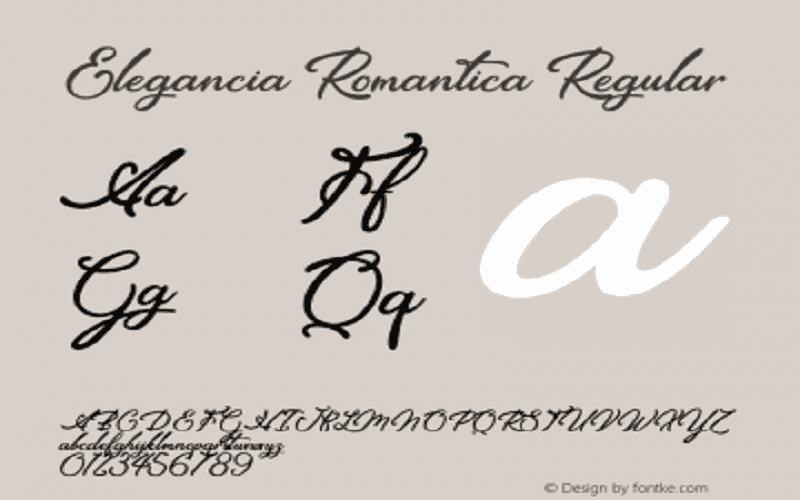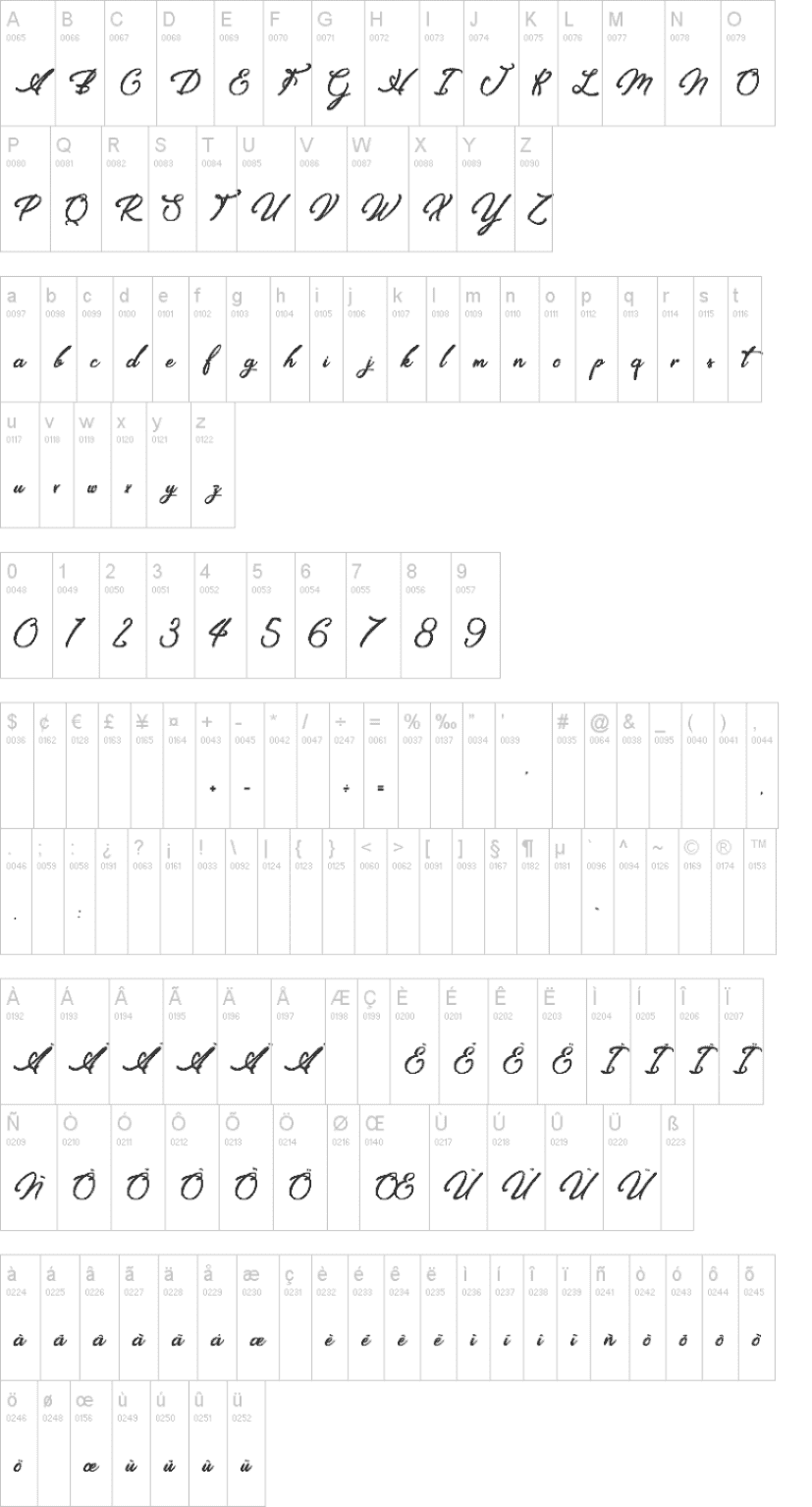
Discover Elegancia Romantica Font, part of the Calligraphy collection—a versatile and unique font perfect for adding a personal touch to your projects. Download it for free and enjoy crafting designs with style, from invitations to social media posts. This font is available exclusively for personal use, giving you the freedom to create without limits. Unlock your creativity with Elegancia Romantica Font today!
Elegancia Romantica by Octotype is a romantic calligraphy font that is download for free for person use only. It comes with, the lowercase letters, the uppercase letters as well as some other symbols of selection.